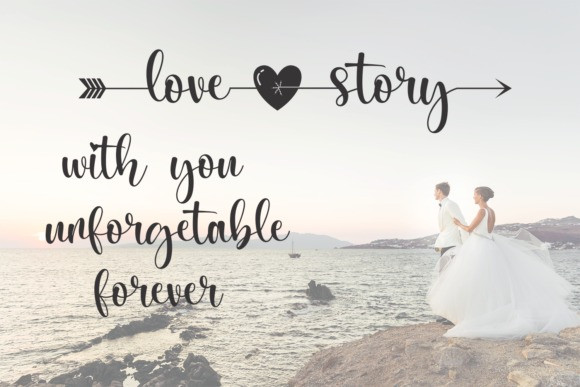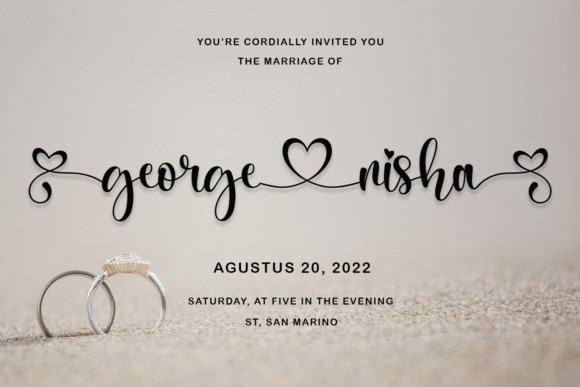
Nagista Calligraphy Font
This is a modern lovely calligraphy typeface with smooth handwritten flows. Made from font designer named Sealoung. It looks ravishing on wedding invitations, thank you cards, quotes, greeting cards, logos, business cards and every other design which needs a customized touch. Nagista is PUA encoded which means you can access all of the glyphs and swashes with ease!